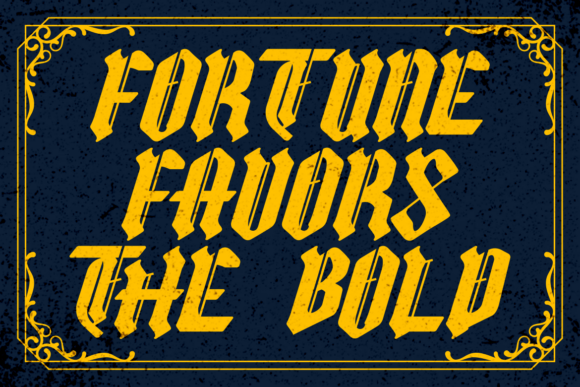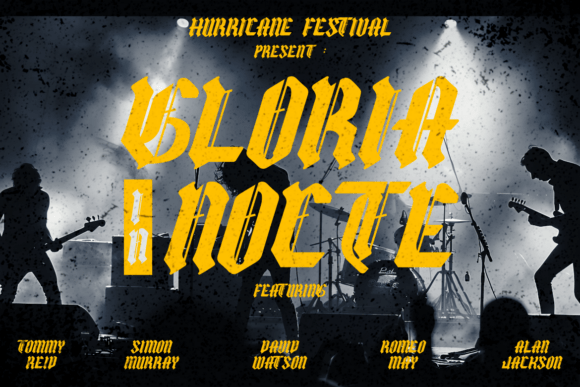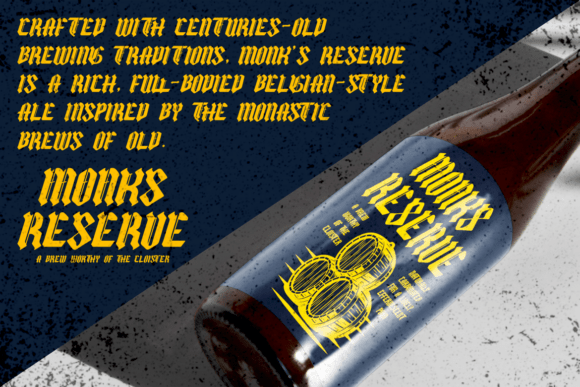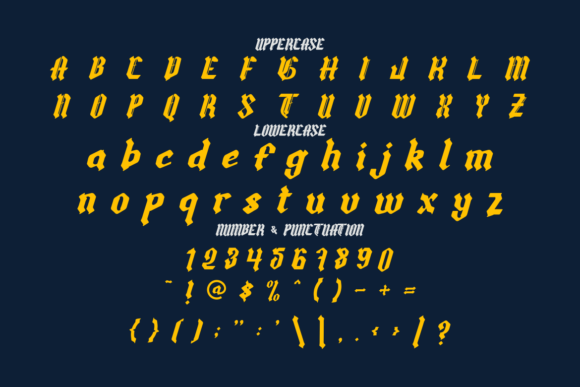
Unleash the Power of Imperial Black Font
As designers, we’ve all been there – staring at a blank canvas, trying to conjure up the perfect font to capture our vision. The right typeface can elevate a design from bland to grand, and that’s exactly what the Imperial Black Font does. This bold and powerful blackletter font embodies elegance, strength, and gothic charm, making it a must-have for any designer looking to create a dramatic and impactful visual experience.
Whether you’re designing for luxury branding, editorial headlines, or gaming graphics, the Imperial Black Font delivers an unmistakable classic gothic presence. With its sharp, angular strokes and medieval-inspired letterforms, this font is perfect for adding a touch of vintage and royal appeal to any design. From book covers to posters, and logos to merchandise, the Imperial Black Font is an invaluable tool for any designer looking to make a statement.
Imperial Black Font Features
- Font Family: Imperial Black, a serif font family
- Unique Characteristics: Imperial Black is a highly legible font with a classic, elegant feel, making it suitable for use in formal and professional settings
- Font Style: Available in a single font style, Imperial Black, which is a bold, condensed font
Imperial Black Font Review
Overall, I was impressed with the Imperial Black Font, but it’s not without its limitations.
- ✨ The font is incredibly bold and eye-catching, making it perfect for titles and headings.
- ✨ The font’s sharp edges give it a sleek and modern feel, ideal for minimalist designs.
- ✨ Imperial Black Font is highly legible, even at small font sizes, making it suitable for body text.
- ⚠️ The font can be overwhelming if used extensively throughout a design. It’s best to reserve it for key elements.
- ⚠️ Imperial Black Font may not be suitable for designs requiring a lot of fine details, as its bold nature can obscure smaller elements.
- ⚠️ The font’s consistency can be inconsistent across different platforms and devices, which may affect its overall appearance.
Imperial Black Font is a great addition to any designer’s toolkit. While it may have some limitations, its bold and modern look makes it perfect for a wide range of designs. With careful use, it can add a touch of sophistication and elegance to any project.
Imperial Black Font is ideal for creating a luxurious and sophisticated look in branding, logos, and corporate designs.
It’s also great for creating dramatic headlines and titles in advertising and marketing materials.
Remember to use Imperial Black Font sparingly to avoid overwhelming your design.